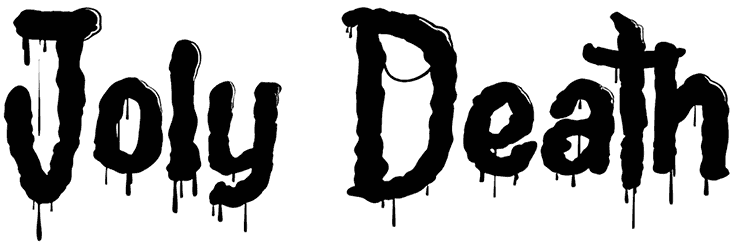
Joly Death Font
Since finding a suitable horror font for designing high-end graphic content would be a little bit time-consuming, we decided to provide you with a long list of various fonts, including Joly Death.
Although it doesn’t support numbers, it is still worth trying in social media posts, video game brochures, branding, gift cards, or flyers. Needless to say, it carries a vibe of fear, dread, dynamism, or tenderness. Check out our glorious archive to find more fonts.